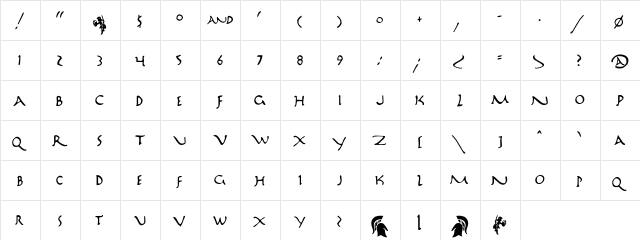
Marathon II Regular
Design Context for Marathon II Typeface
Marathon II is a composed and adaptable typeface that performs quietly and consistently across a wide range of design contexts.